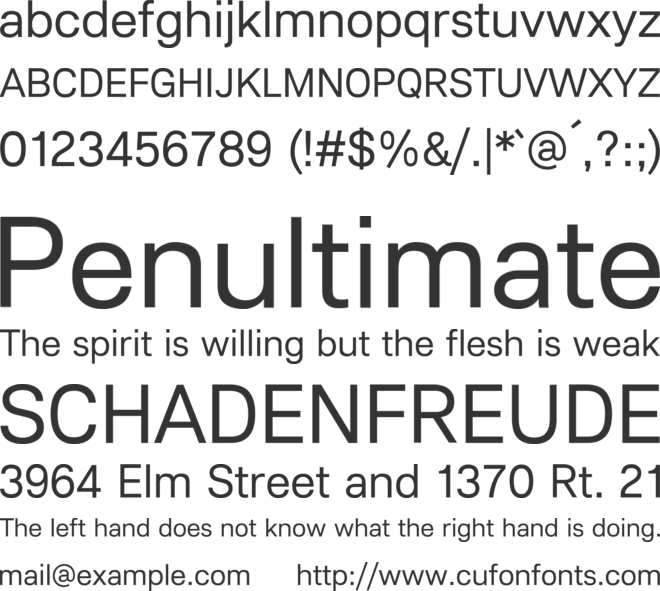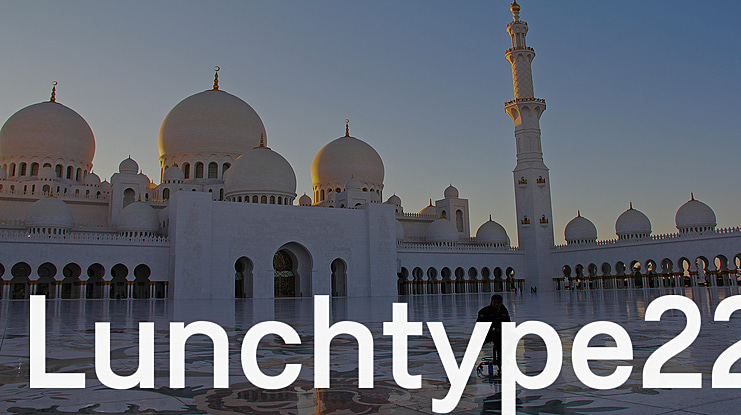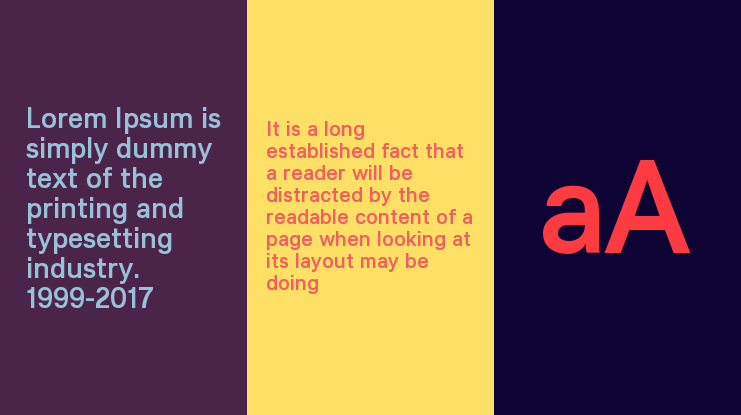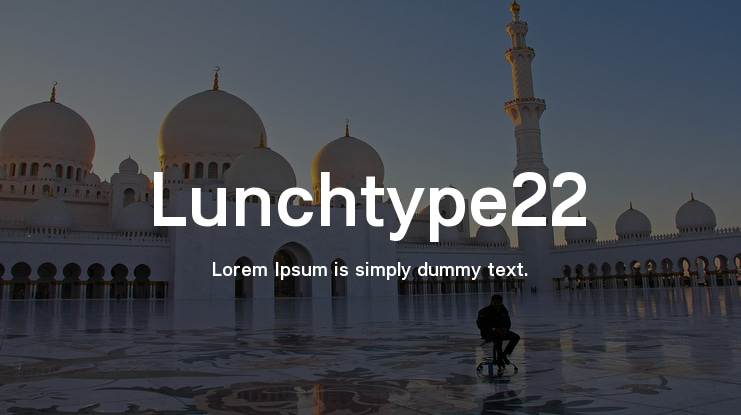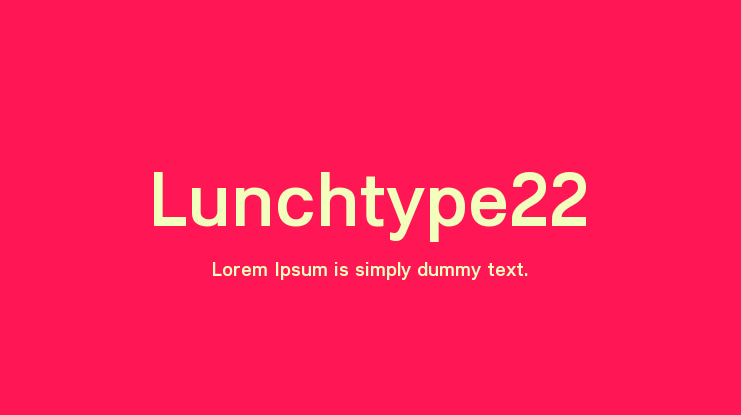
Lunchtype22 Font Family
Lunchtype is a contemporary lunch-time design experiment updated irregularly on Steppot @Instagram around 13:00-14:00 (CET +01:00) oâclock daily during a #100daysproject in 2015. Learning from letters every lunch was the approach towards every post uploaded under the hashtag #lunchtype.
The project aim was to embody boredom from tasteless dishes and spiritless food. A wish to recreate uninspiring lunch hours through letters forms. To be inspired by the futile to design the most uninspiring typeface of all time.
Lunchtype is now a continuous typographic project. Whenever a boring lunch hour occurs, a letter form is created. Lunchtype now consists of 25 weeks of boring lunch, free for you to download and use.